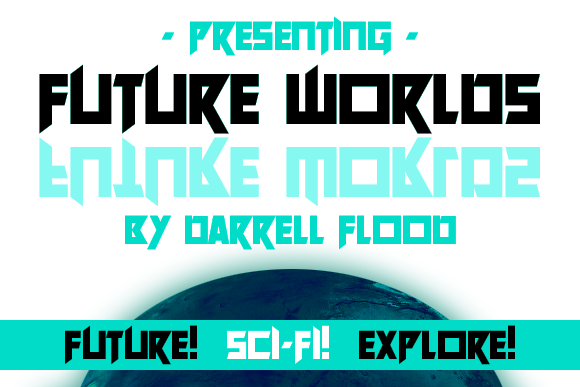
Unlocking the Secrets of Tomorrow, One Font at a Time
As a designer, there’s that moment when a project comes together and you know you’ve created something truly special. The idea sparks, the concept takes shape, and the visuals come alive. But what if you could elevate that experience to the next level? Introducing the Future Worlds Font, a modern Sci-fi themed display font designed to transport your audience to a world beyond their wildest dreams.
This sleek and futuristic font is more than just a design element – it’s a gateway to a universe of endless possibilities. Whether you’re working on a futuristic sci-fi film, a cutting-edge tech startup, or a space-themed video game, the Future Worlds Font is the perfect tool to help you bring your vision to life. With its versatility and modern aesthetic, it’s no wonder why designers are falling in love with this font.
Future Worlds Font Key Features
- Font Size: The font comes in 5 weights, ranging from Light to Extra Bold, providing flexibility for various design applications.
- Character Set: The font includes a comprehensive character set, covering Latin, Cyrillic, and Greek alphabets, as well as punctuation and special characters.
- Unique Characteristics: The Future Worlds Font features a futuristic, high-tech aesthetic, with geometric shapes and clean lines, making it ideal for sci-fi, technology, and futuristic designs.
Future Worlds Font Review
Overall, I’d say the Future Worlds Font is a solid addition to any design project, but it’s not without its quirks. ✨ Here are some things I think the font does well:
- The font’s futuristic aesthetic is on point, making it perfect for sci-fi themed projects or anything that requires a sleek, high-tech feel.
- The font’s bold weight is great for headings, and the thin weight is great for body text, making it versatile for a wide range of applications.
- The font’s ligatures are well-designed, and the kerning is decent, making it easy to read.
However, there are some limitations to consider: ⚠️
- The font’s thin weight can be difficult to read in certain contexts, especially at smaller sizes.
- The font’s ligatures can be a bit too ornate, making it difficult to pair with other fonts.
- The font’s design is not particularly original, and it may not stand out in a crowded design market.
Overall, I’d give the Future Worlds Font 3.5 out of 5 stars. While it’s a solid choice for certain projects, it may not be the best fit for every design task. With a bit of tweaking and refinement, this font has the potential to be truly great, but for now, it’s just a solid, if unremarkable, addition to the font family.
For the best results, use Future Worlds Font for futuristic or sci-fi themed designs.
Use it for headings and titles to add a touch of futurism.